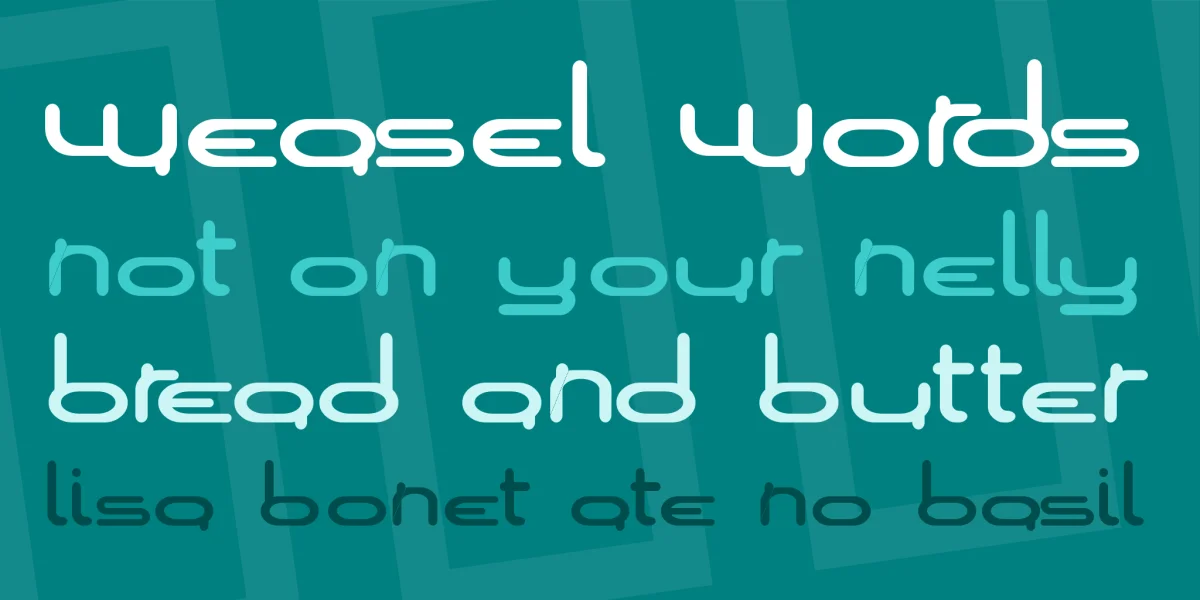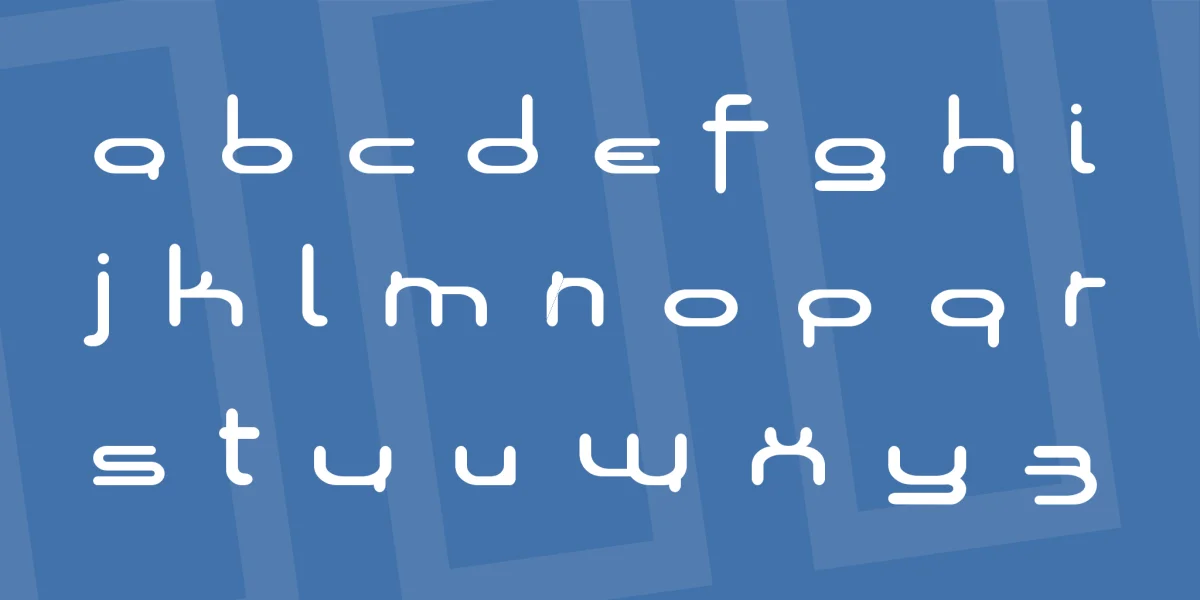
At last! A font I have started to design on computer. Ok, I designed it on paper, but it's drawn in Fontographer. And it's cool, well I like it anyhow. You should see the way in which the w and m work...it's uncommonly bizarre!